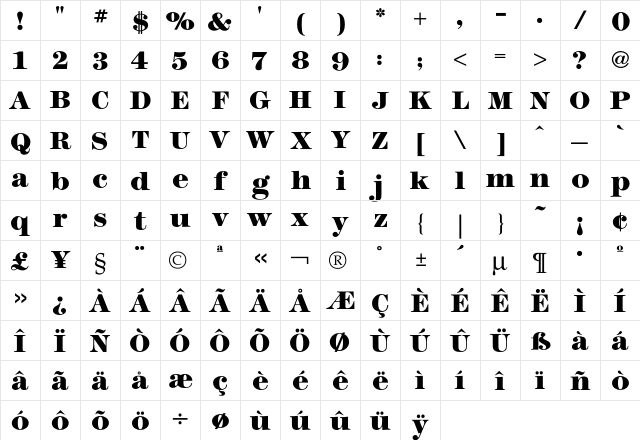
Modern Heavy
Design Context for Modern Typeface
Modern offers clean, dependable letterforms without strong stylistic allegiance, making it a practical choice for designers who need flexibility.